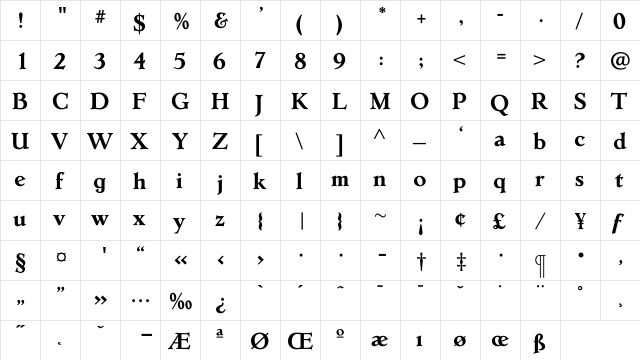
ErasmusBold Regular
Design Context for ErasmusBold Typeface
ErasmusBold takes a measured approach to typography — its balanced proportions and neutral character make it a reliable workhorse for both digital and print work. The heavy weight commands attention and anchors typographic hierarchies.
Pro Tip: Pair ErasmusBold with a font of contrasting weight or personality to build a more expressive typographic hierarchy.